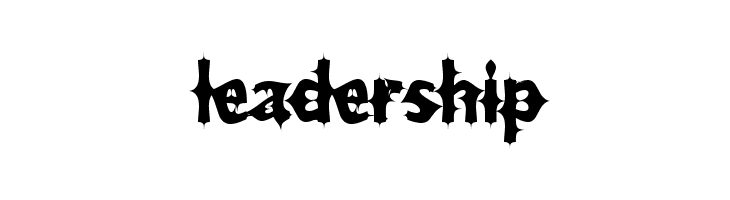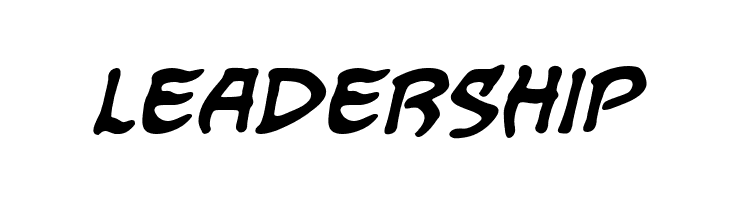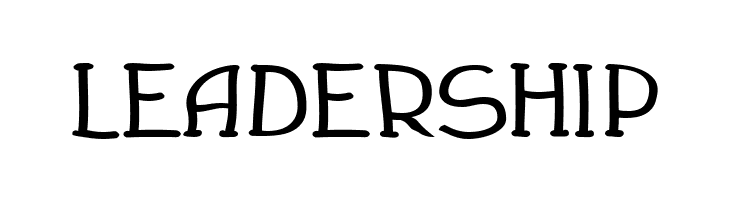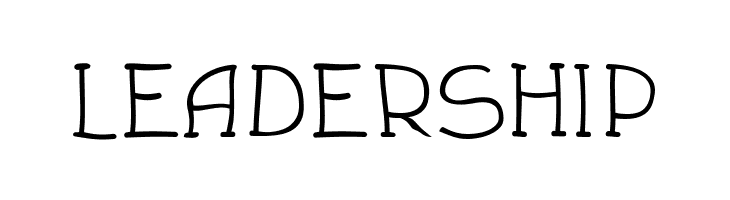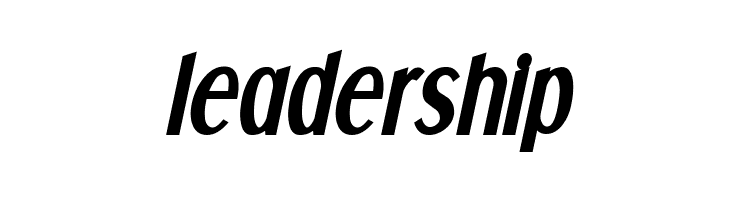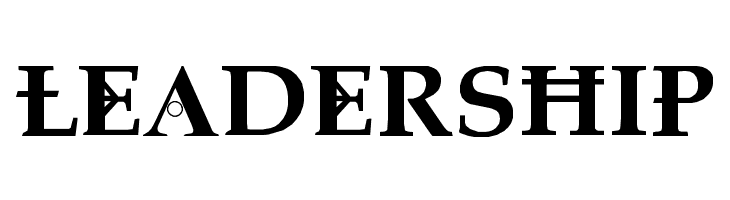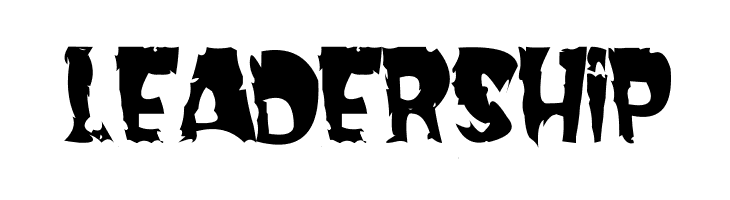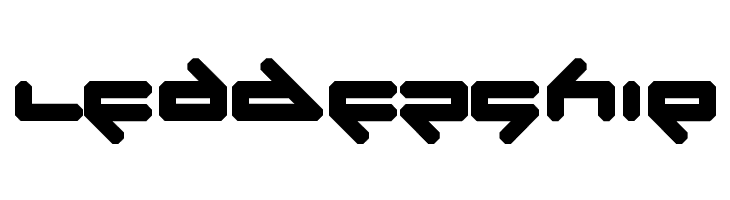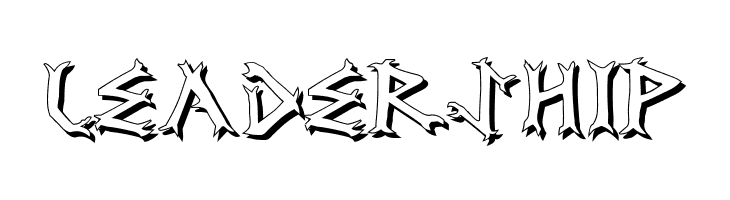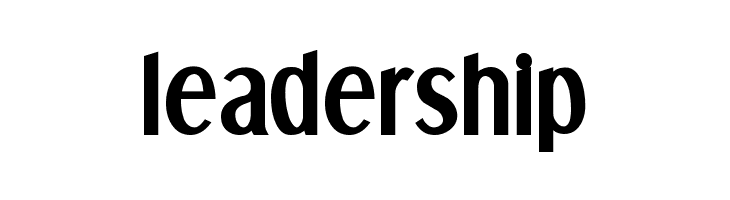
A bold, angular font with a fantasy-inspired, dragon-like design.
A bold, shadowed font with a gothic, angular design.
A decorative, hand-drawn font with a mystical and playful style.
A bold, dynamic font with a hand-drawn, energetic style.
A bold, italic font with a brush-like, dynamic style.
A bold, decorative font with a whimsical, hand-drawn style.
A bold, brush-like font with a playful and dynamic style.
A bold, italic font with dynamic, angular strokes and a creative flair.
A playful, casual handwritten font with dynamic, irregular strokes.
Ornate decorative font with dragon illustrations as characters.
A dynamic, hand-drawn font with artistic and expressive strokes.
An artistic and whimsical font with flowing, hand-drawn letterforms.
Illustrative font featuring drama and theater motifs.
Illustrative, decorative font themed around dramatic and creative arts.
A playful, hand-drawn font with quirky and whimsical letterforms.
A bold, grid-patterned display font with an architectural and technical design.
Expressive, hand-drawn faces and figures replace traditional letterforms in a playful, decorative style.
A bold, gothic-inspired font with sharp, angular edges and intricate details.
A bold, distressed font with jagged edges and an eerie, dramatic style.
A decorative serif font with intricate details and a modern twist.
A decorative, retro-futuristic font with layered, parallel lines and geometric symmetry.
A whimsical and decorative font with intricate patterns and star motifs.
A bold, high-contrast font with a modern yet classic style.
A bold, italicized font with dynamic, forward-leaning characters.
A modern, italic font with sleek, elongated characters and a dynamic style.
A modern, high-contrast font with elegant, slender characters.